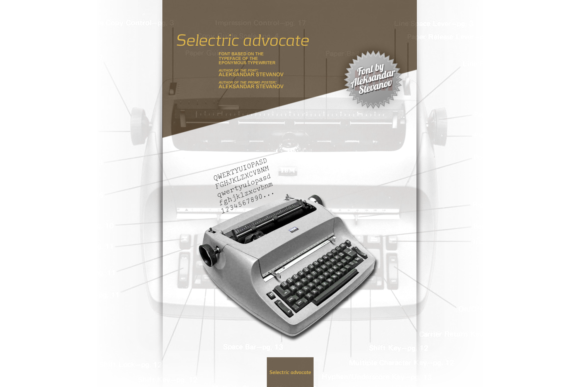
Step back in time and embrace the charm of vintage type with Selectric Advocate, a serif font that exudes retro elegance. Inspired by the nostalgic click-clack of typewriter keys, this font captures the essence of classic aesthetics, adding a touch of history to your designs.
With its distinctive slab serif strokes and sharp edges, Selectric Advocate evokes a sense of authenticity, making it perfect for projects seeking a timeless appeal. Its solid structure and wide proportions ensure excellent readability, even in small sizes, guaranteeing a seamless user experience.
Whether you're crafting logos, posters, packaging, or any other design element, Selectric Advocate seamlessly blends the past with the present. Its versatility extends from vintage-inspired designs to contemporary projects, effortlessly adding a touch of sophistication and charm.